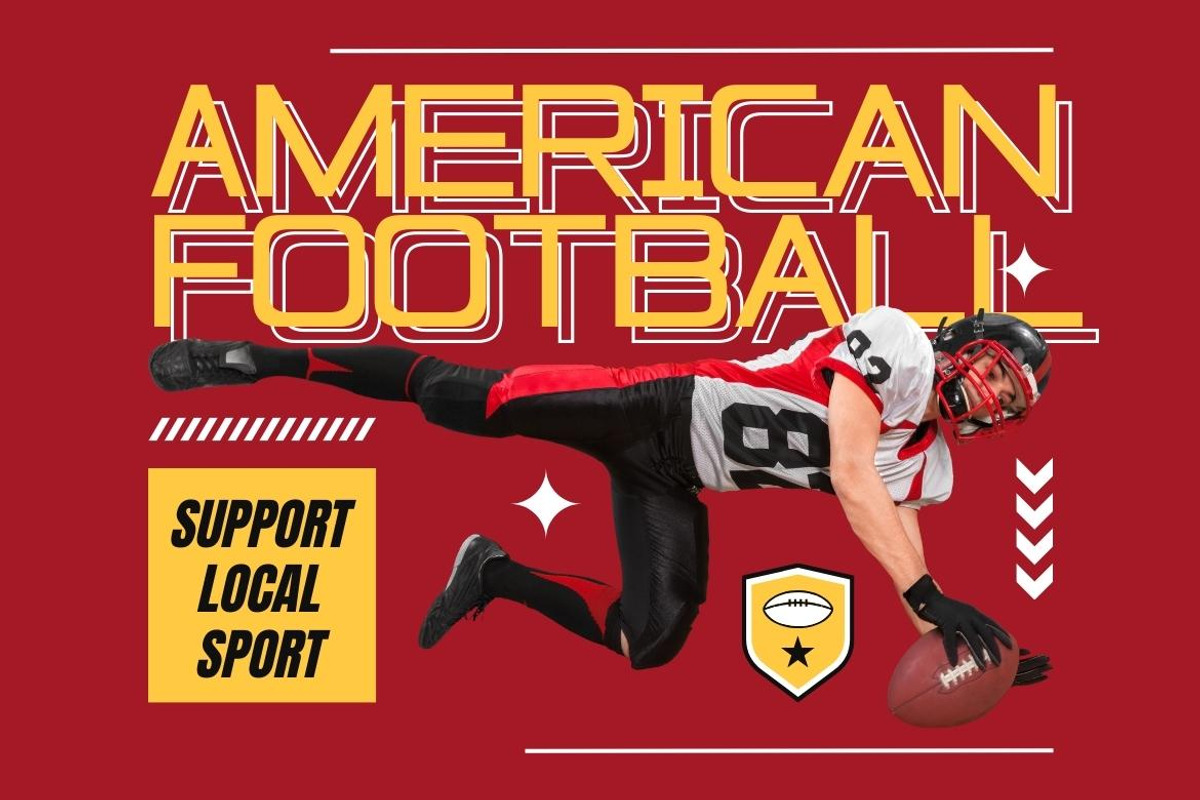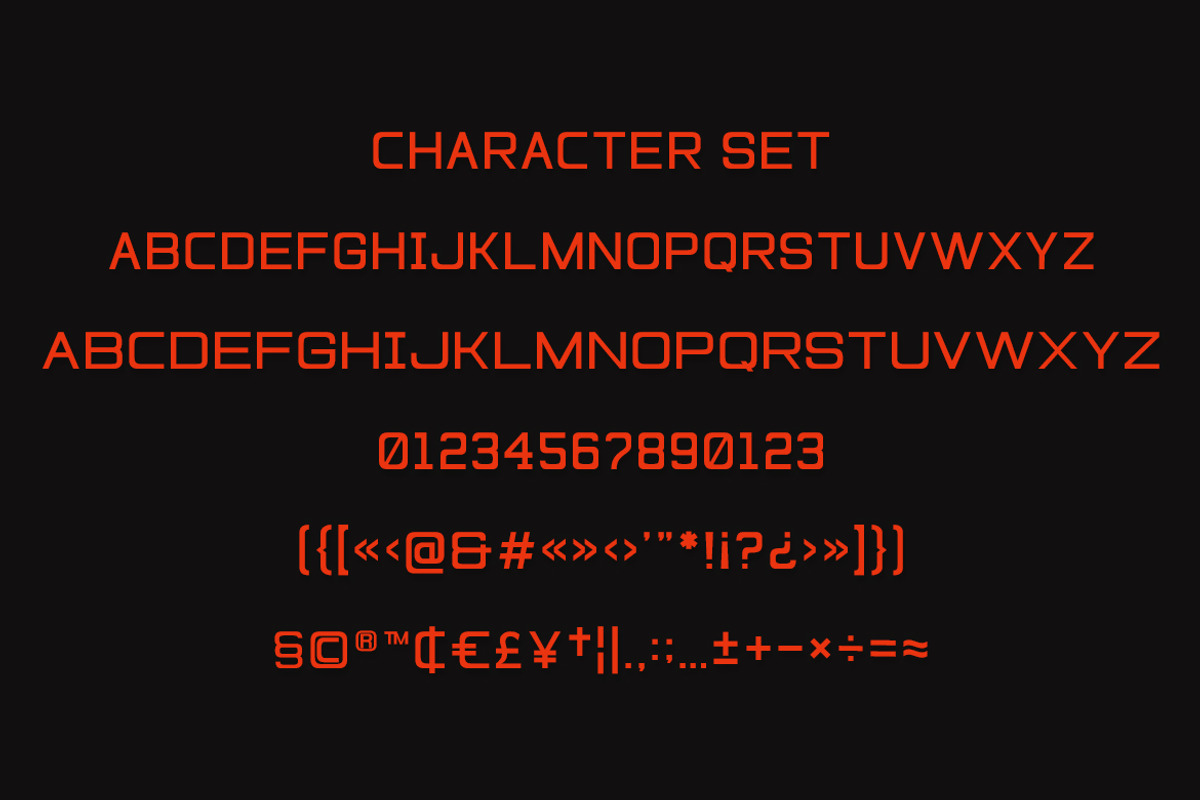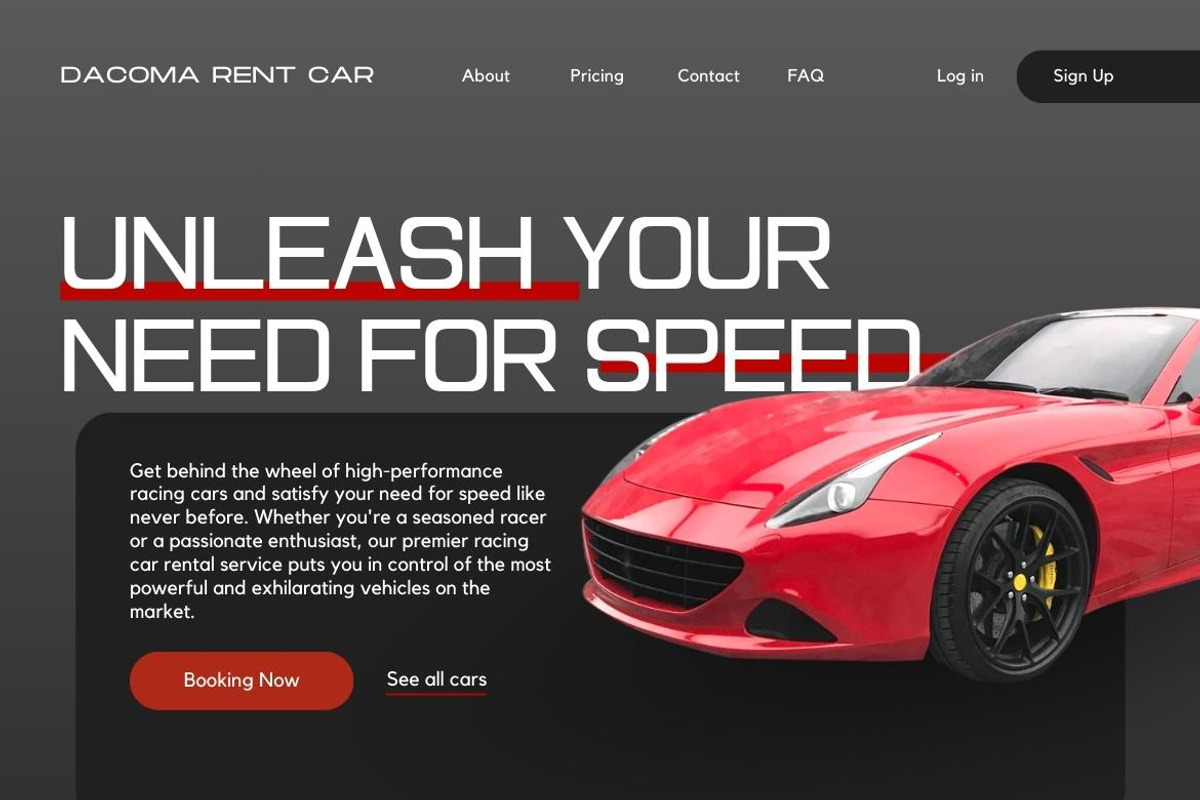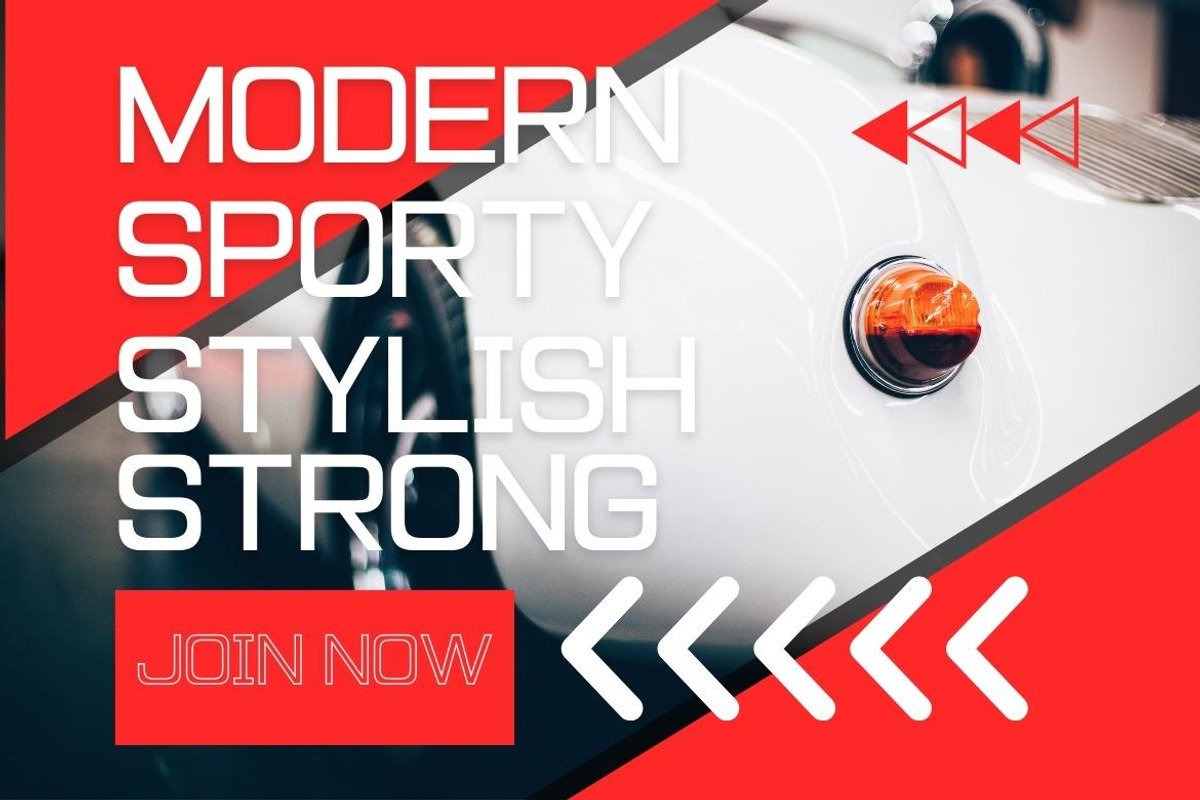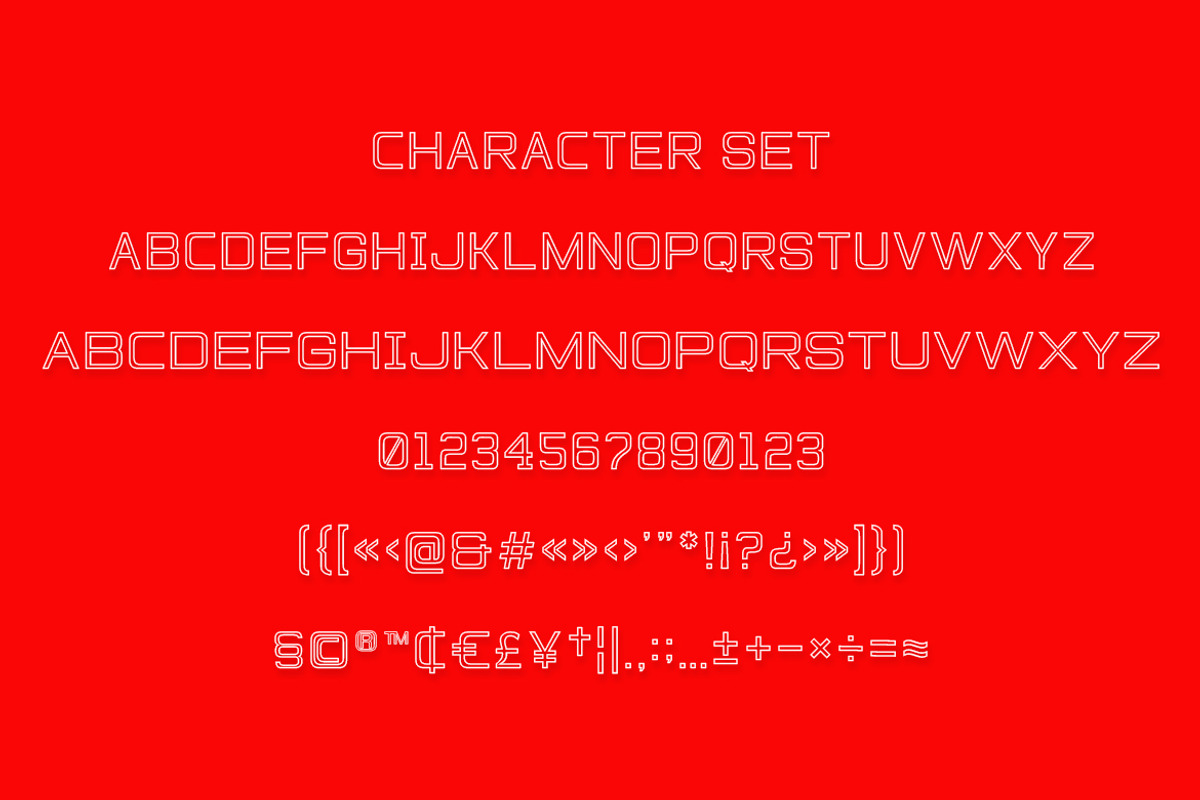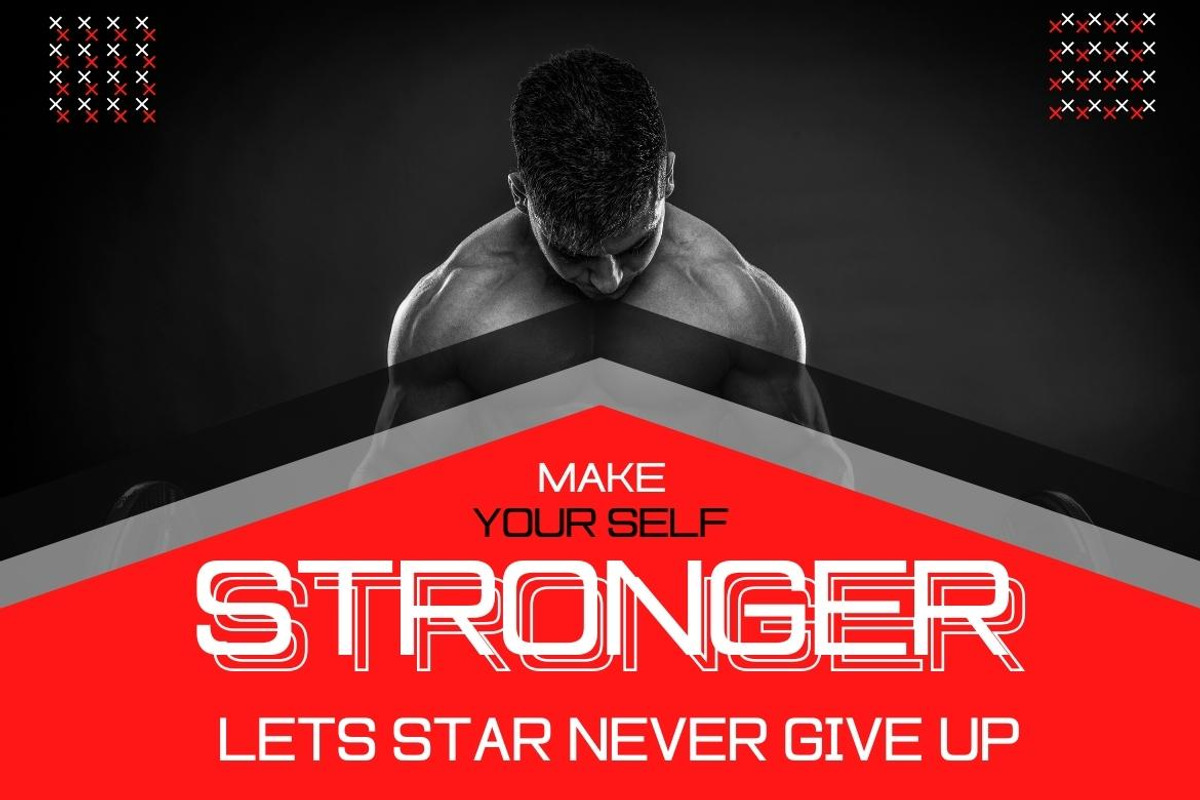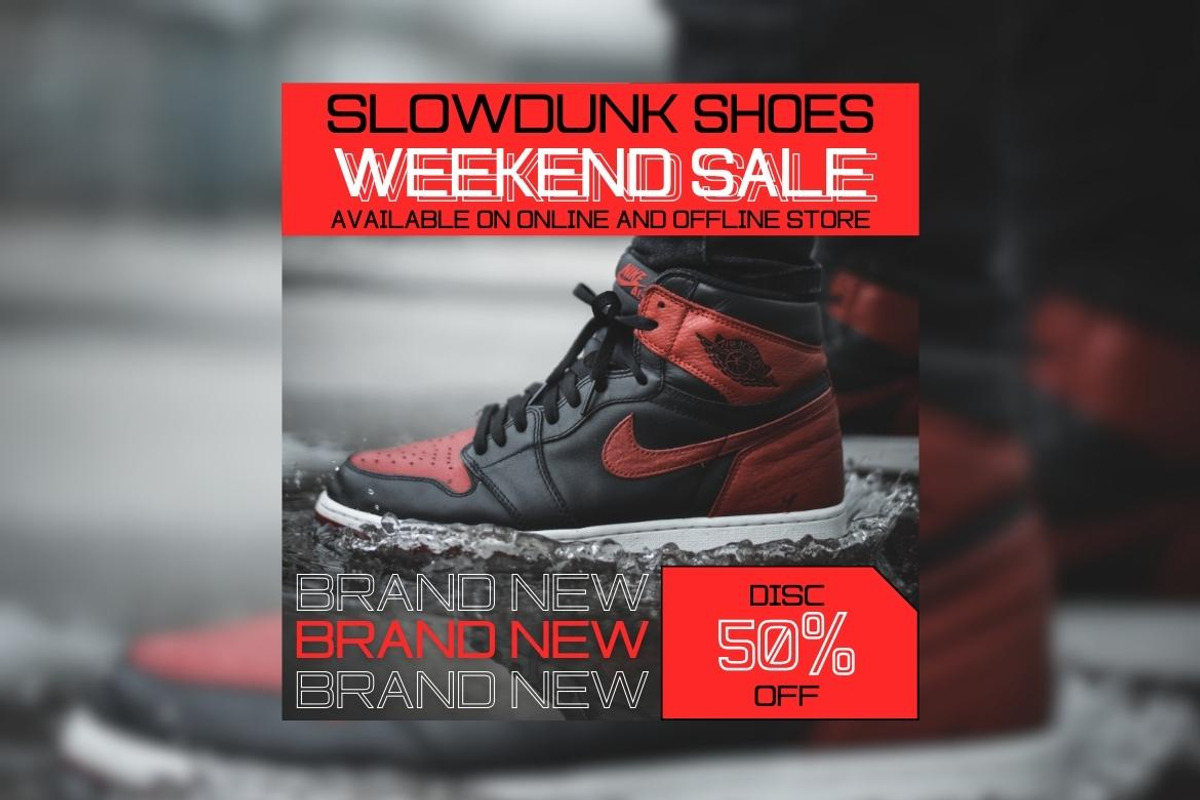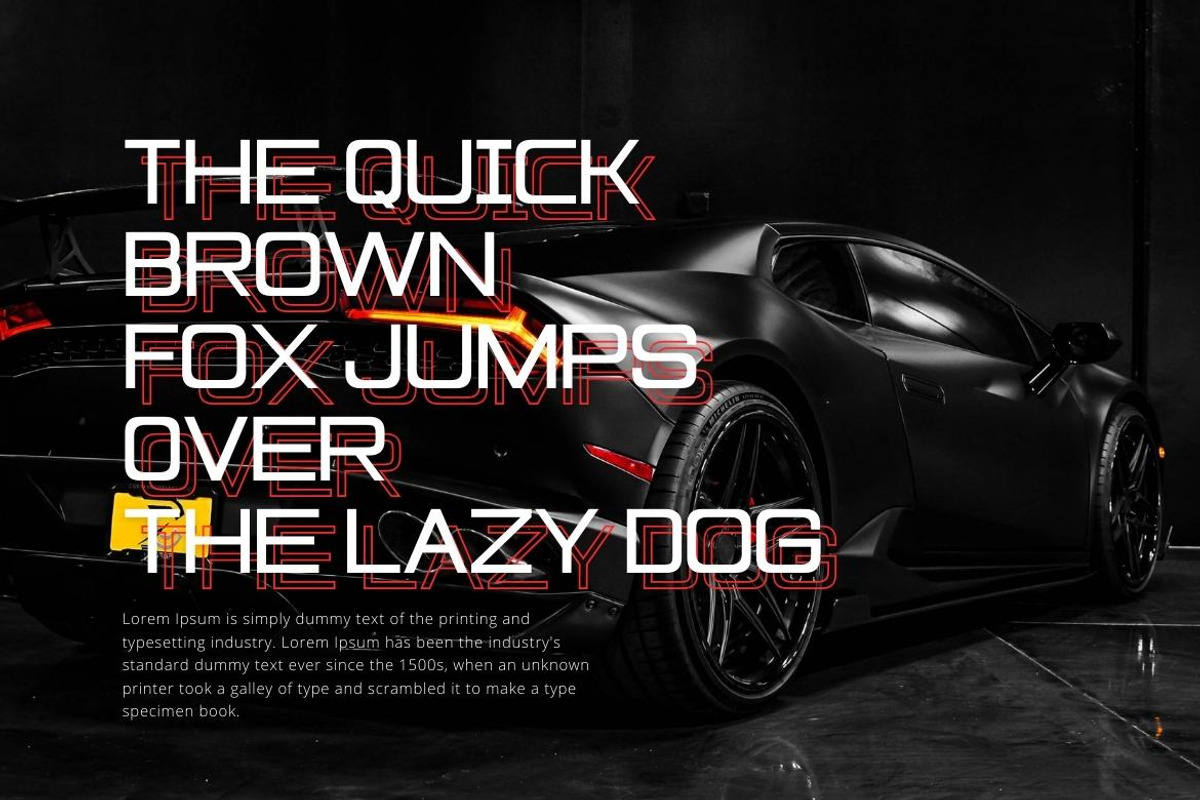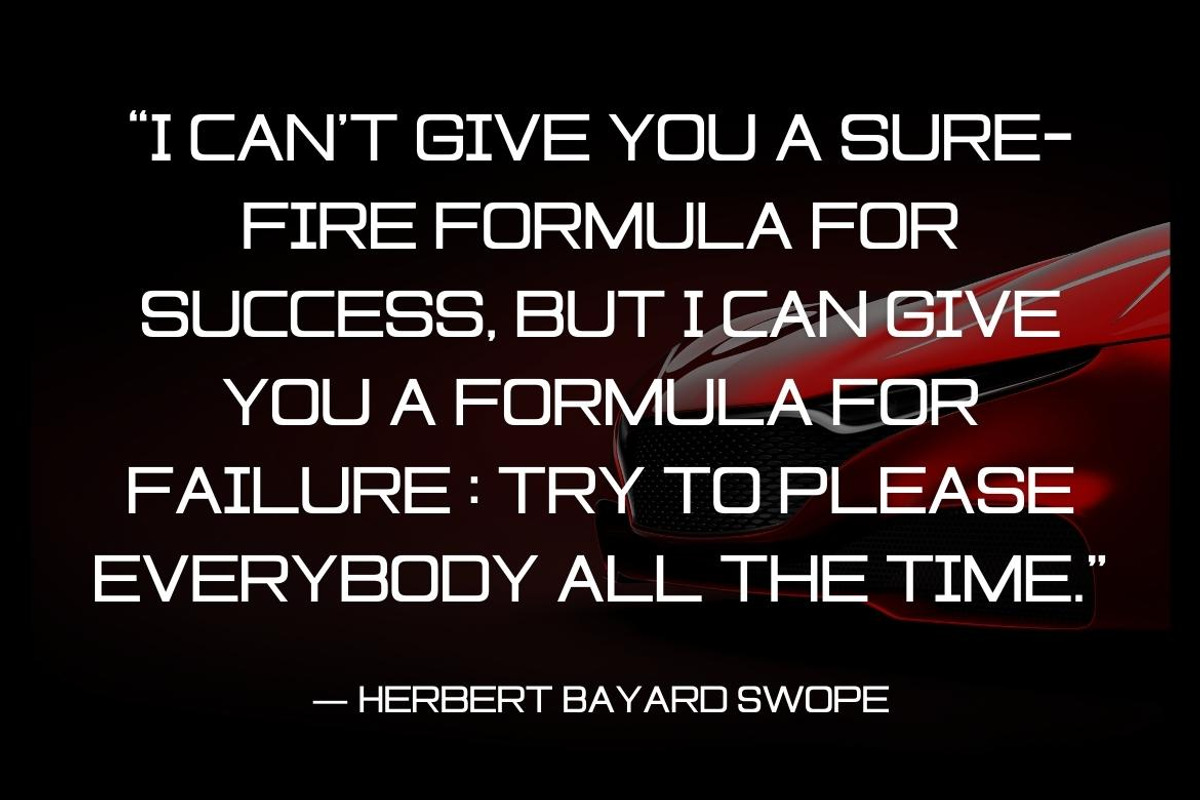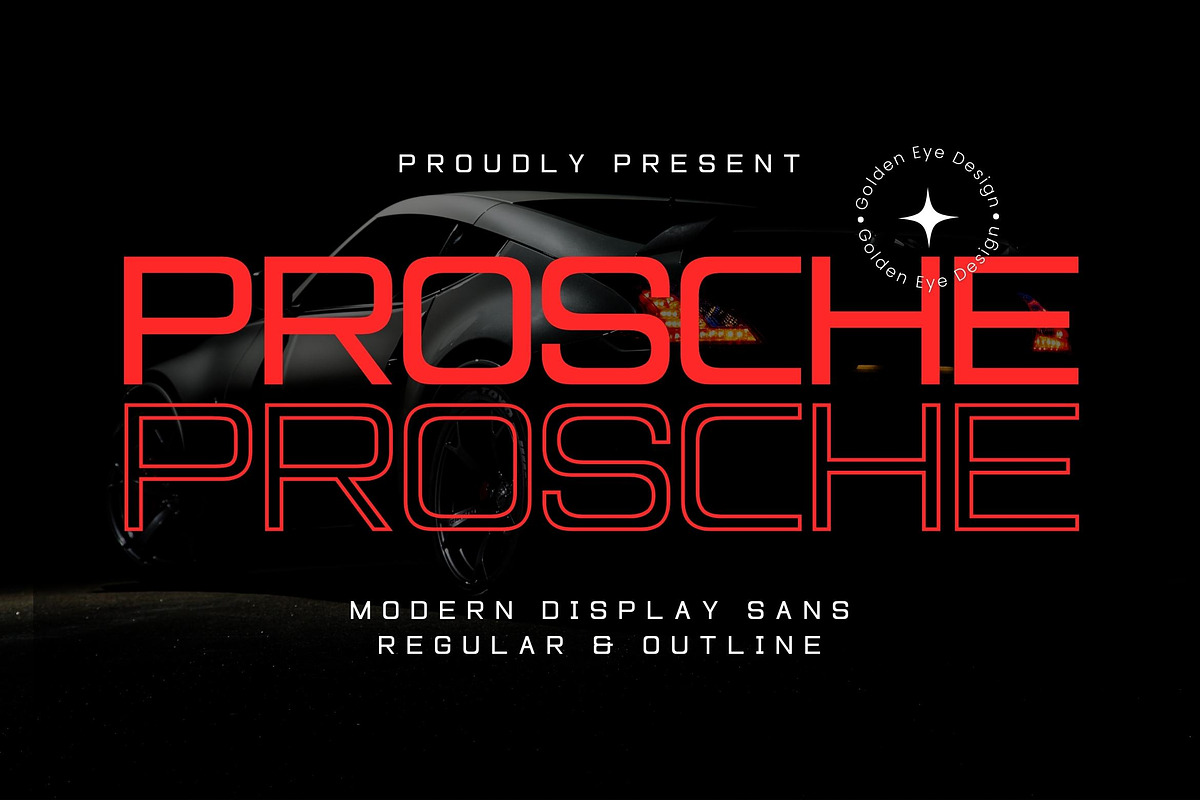
Prosche - Modern Sans Serif
Introducing Prosche - Modern Display Sans Serif. Prosche is a modern and simple font, best used as a display for headings, logos, branding, magazines, product packaging and invitations. Come with 2 versions, Regular & Outline.